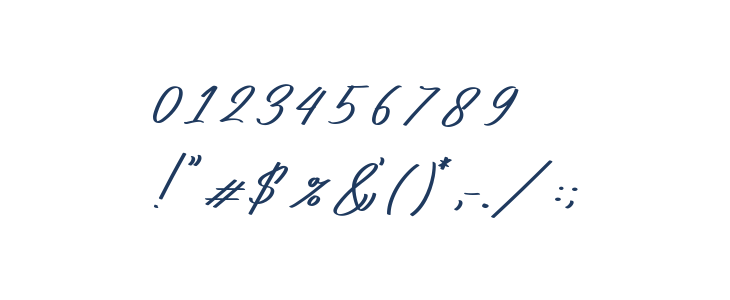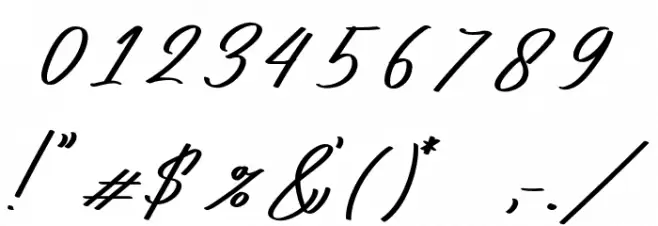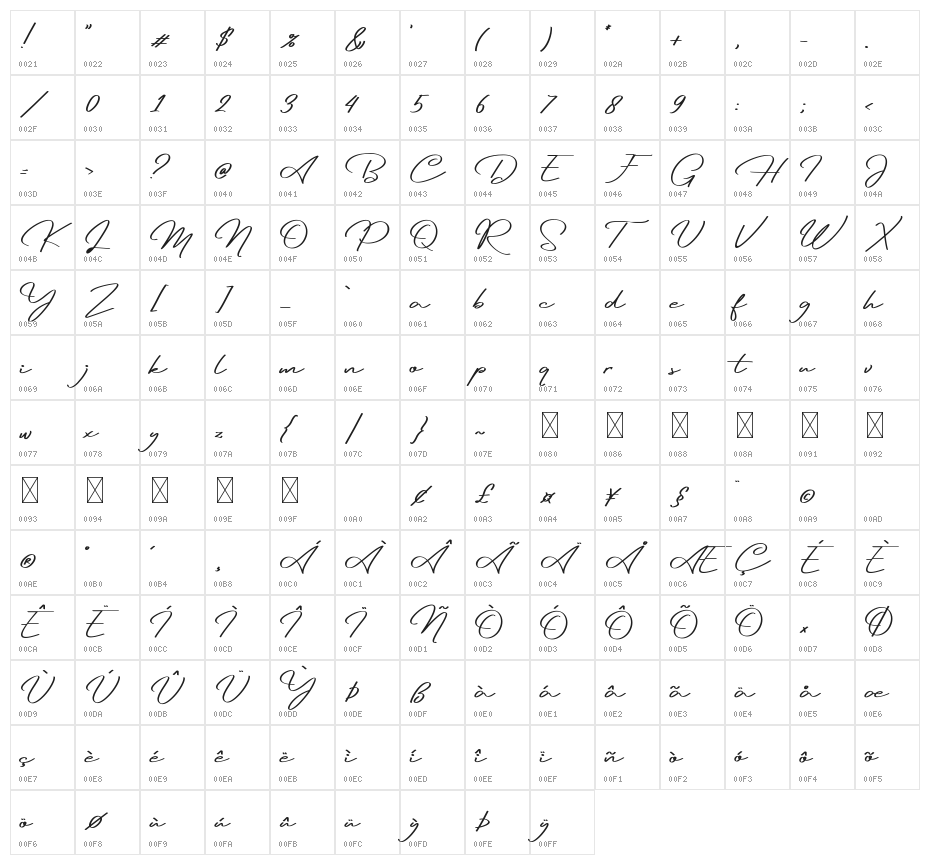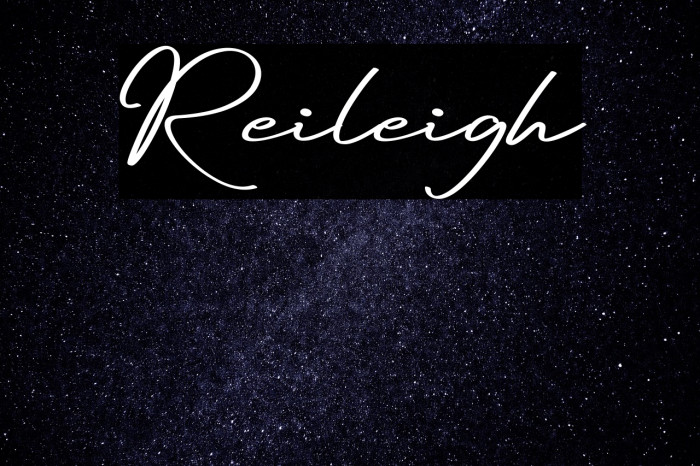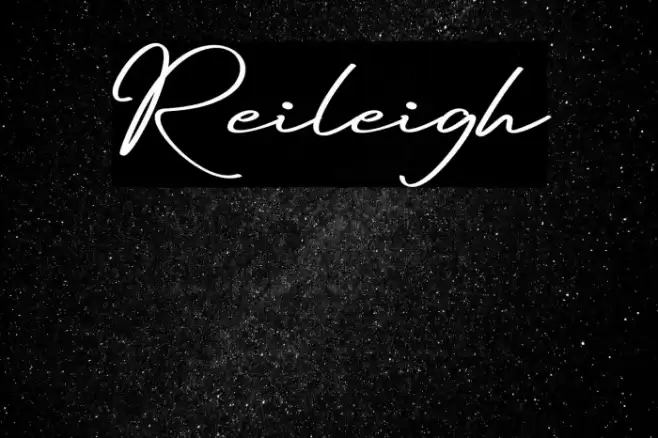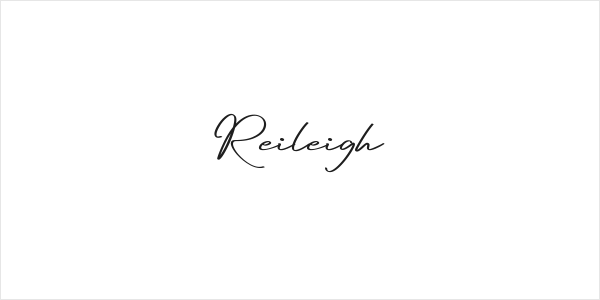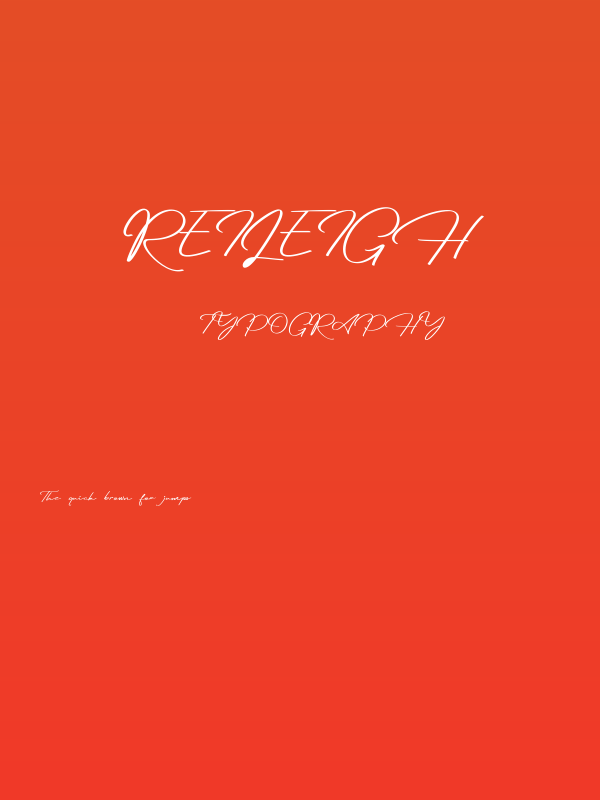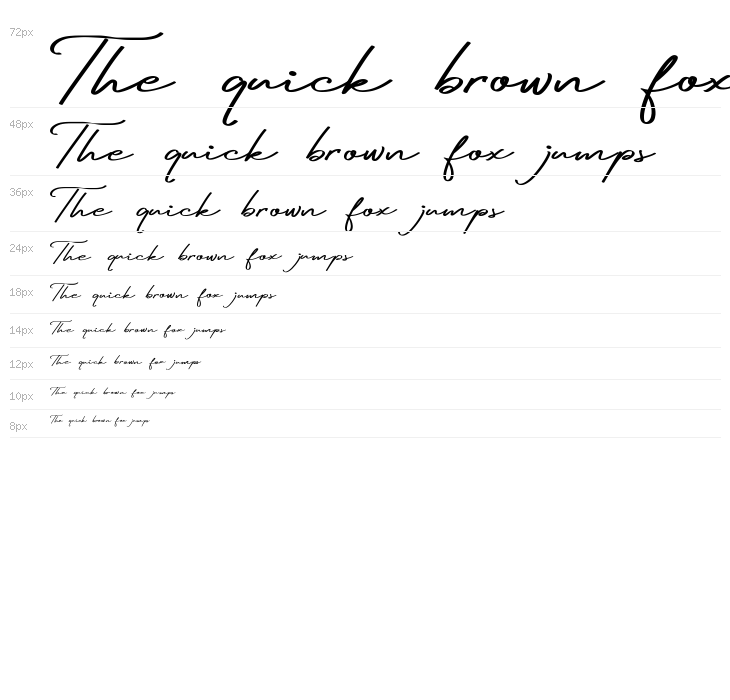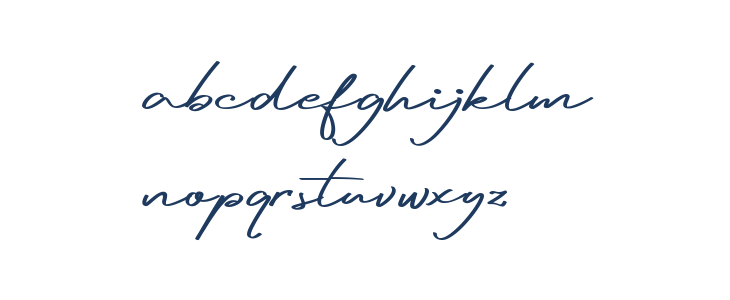
Reileigh Font
Reileigh Description
This elegant script font features a flowing, cursive style that mimics natural handwriting. The uppercase letters are ornate and slightly elongated, giving a sophisticated and graceful appearance. The lowercase letters maintain a consistent flow, with smooth curves and connections between characters. The numerals are designed to complement the overall style, with a slight slant and fluidity. Special characters are crafted with the same attention to detail, enhancing the font's versatility. This font is perfect for projects that require a personal touch or a sense of elegance.